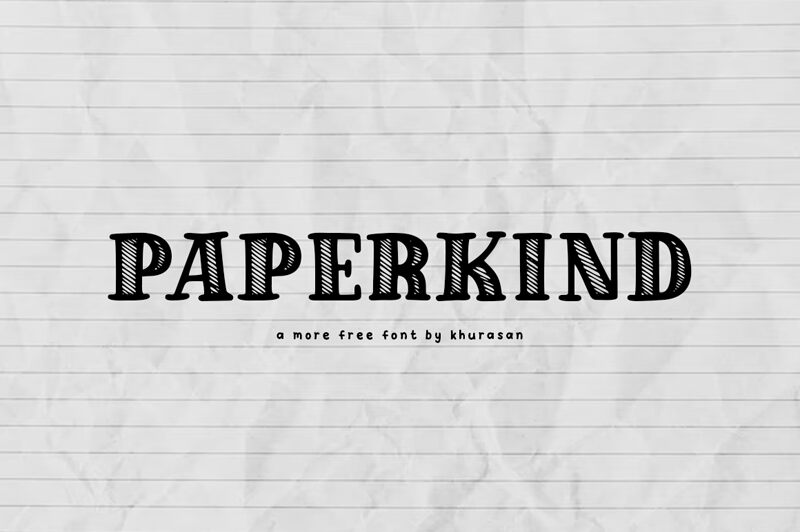
Paperkind by Khurasan is a bold display font that is perfect for projects that require a creative and eye-catching touch. With its thick lines and unique style, this font is ideal for posters, book covers, and social media graphics. Its boldness makes it stand out on any platform and draw the viewer's attention to the message being conveyed. Paperkind adds a touch of elegance to any design project while still maintaining its modern appeal. Whether you're designing for print or digital media, this semi-bold typeface is versatile enough to suit your needs.
Paperkind